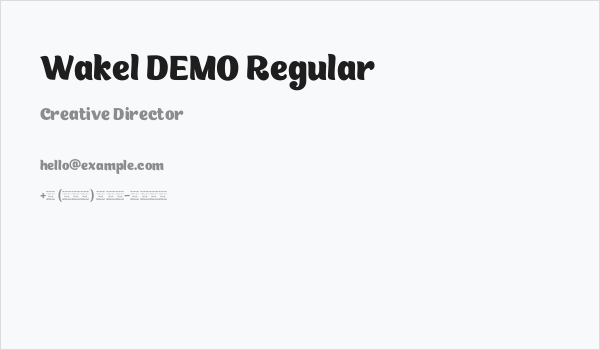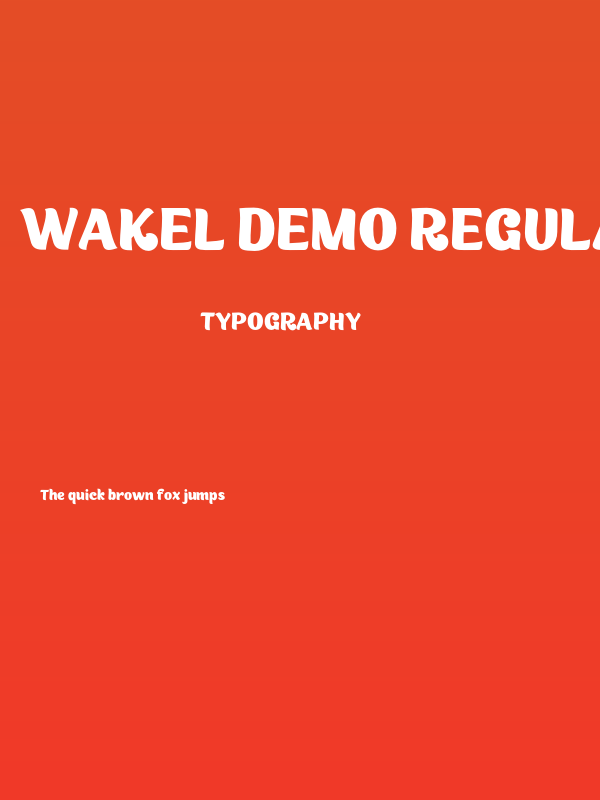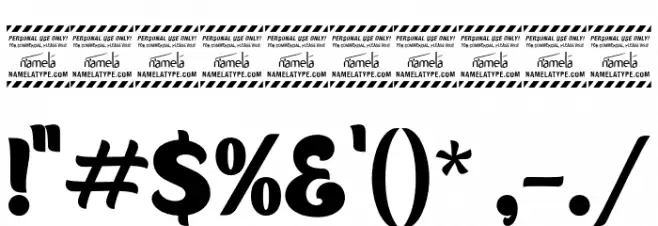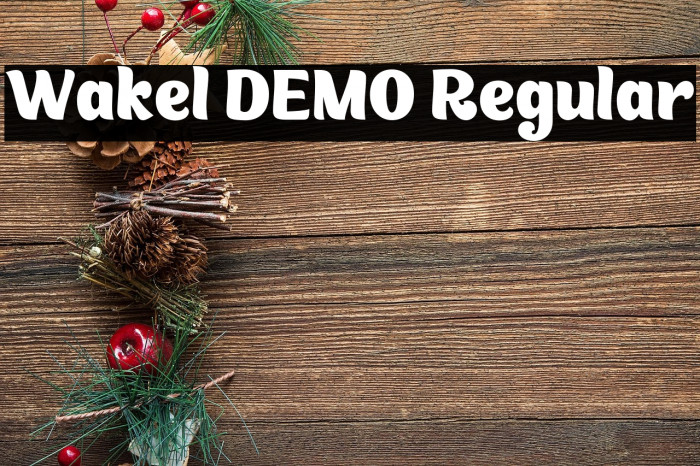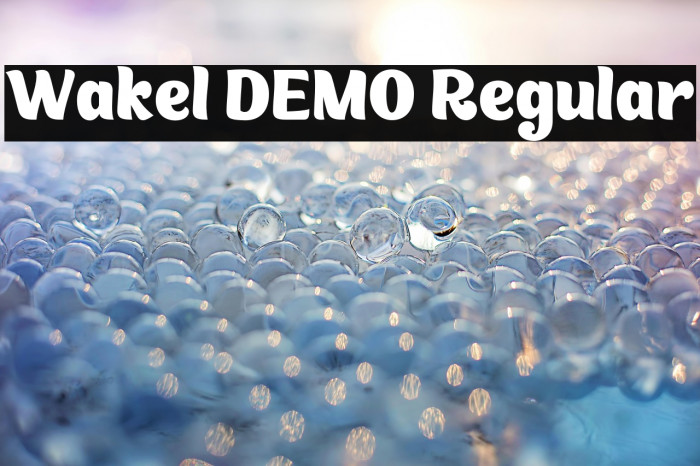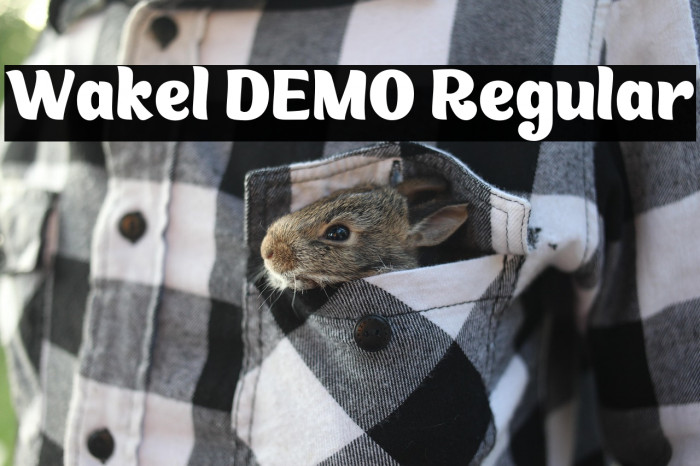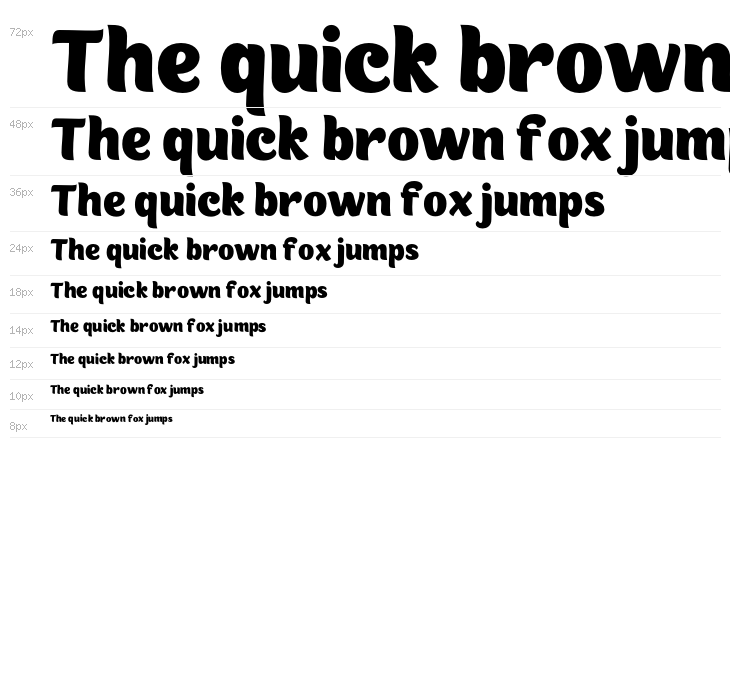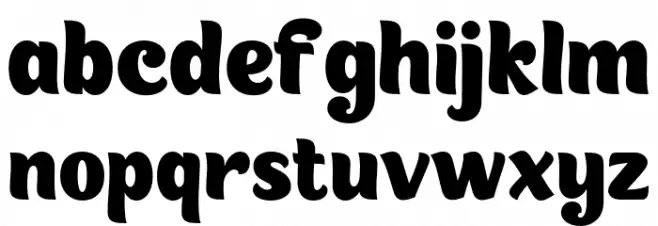
Wakel DEMO Regular Font
This font features a bold and playful design with rounded edges and a slightly irregular shape, giving it a whimsical and friendly appearance. The characters are thick and substantial, making them highly legible and impactful. The uppercase and lowercase letters maintain a consistent style, with a slight slant that adds a dynamic feel. The numerals and special characters are equally bold, ensuring uniformity across all text elements. This font's unique style makes it suitable for creative and informal applications.
| Proposed Projects | Ideal for children's books, playful branding, posters, and creative projects. |